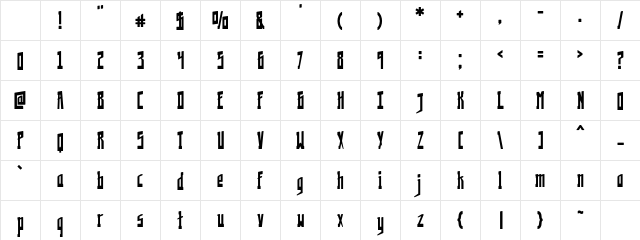
Kremlinology Regular
Designer: Lauren Ashpole
Kremlinology Family
Complete Kremlinology Regular glyph index. Displaying only characters natively supported by Kremlinology Regular font.
Design Context for Kremlinology
Kremlinology is a composed and adaptable typeface that performs quietly and consistently across a wide range of design contexts.